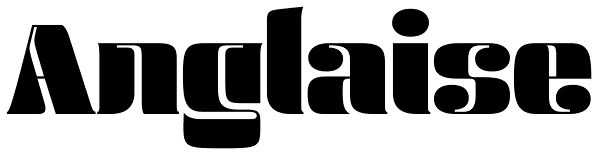
Anglaise
Anglaise was designed for display and it likes to be big and present, filling the width of a whole spread. The repetition of vertical black and white space holds the typeface together and the contrasting straight and round shapes add the...